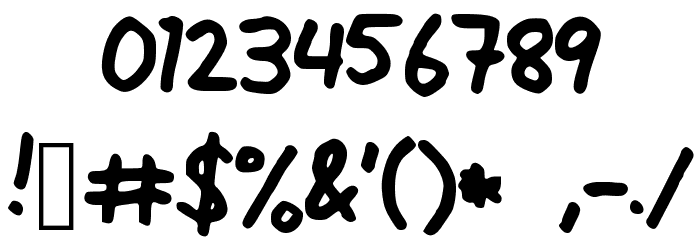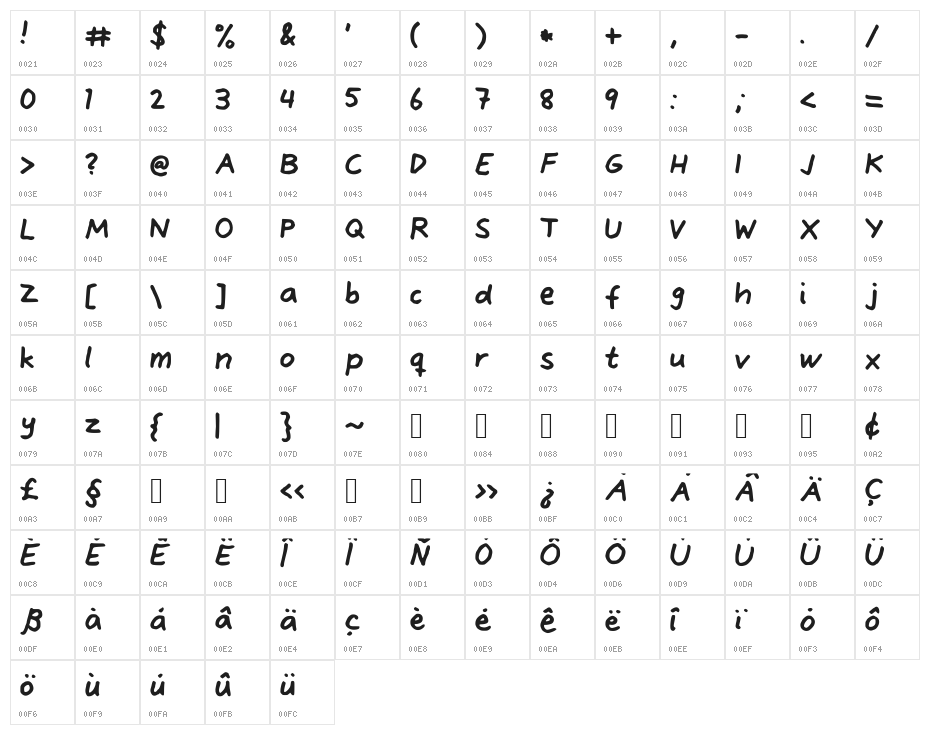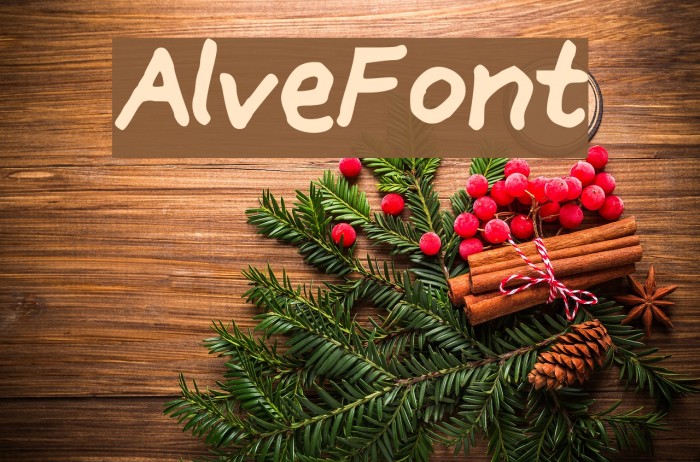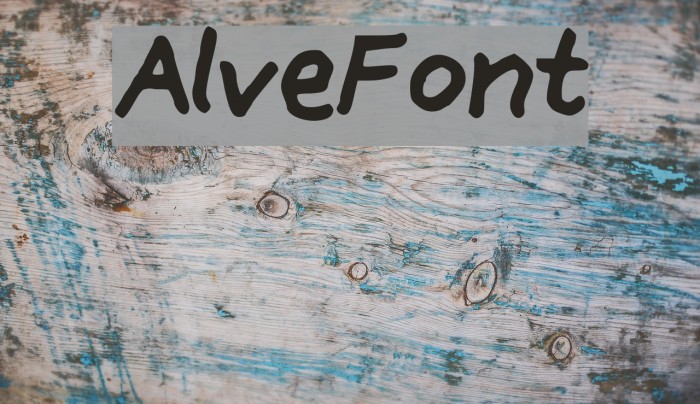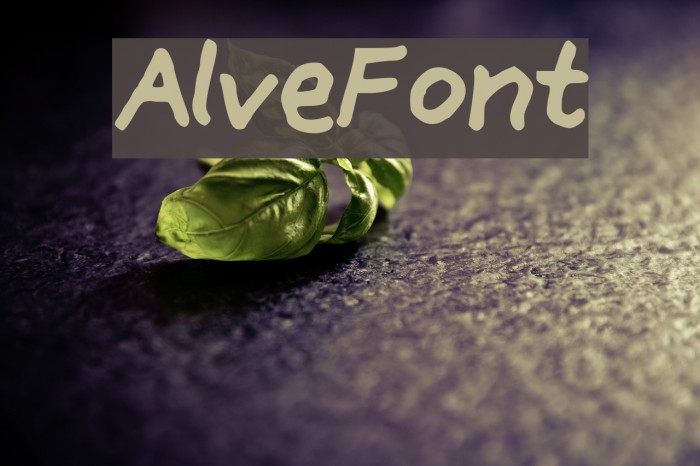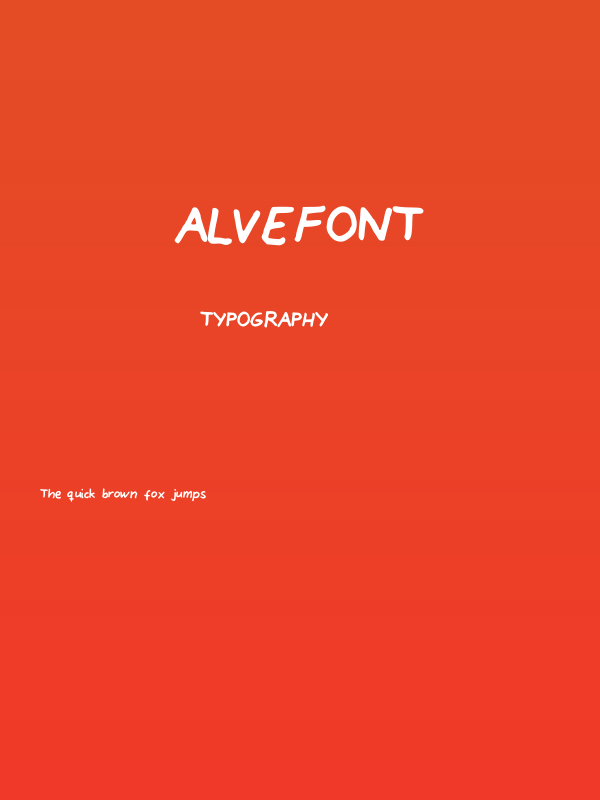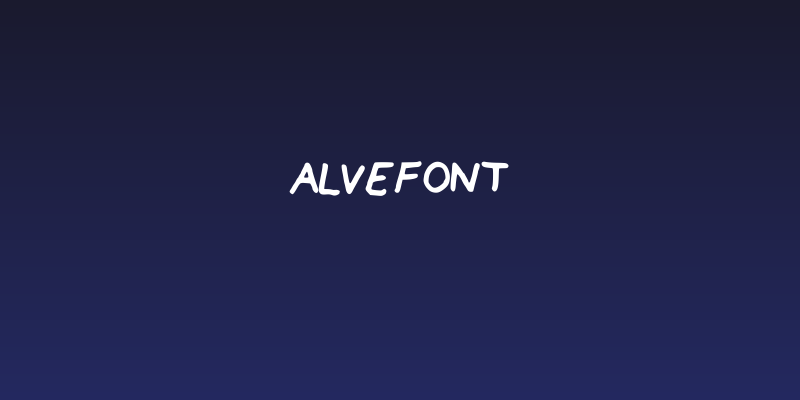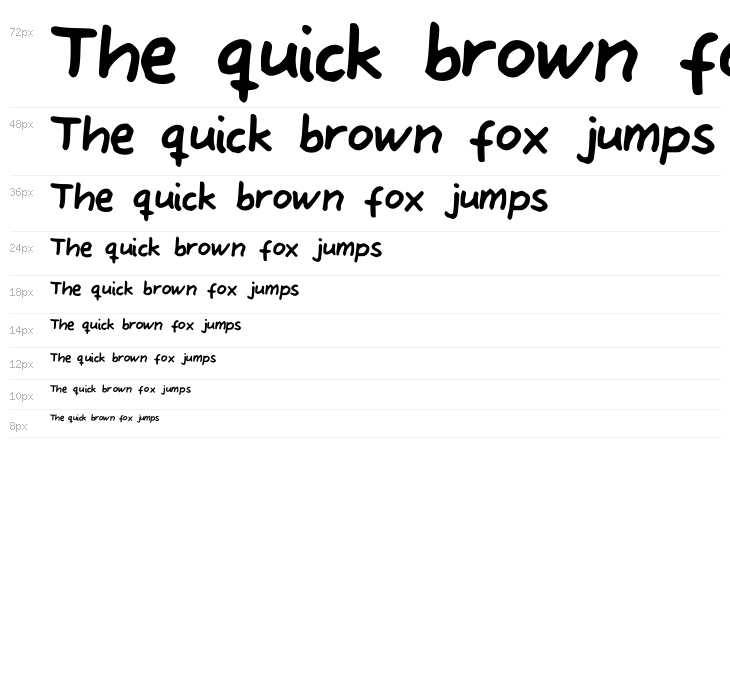
AlveFont Font
AlveFont Description
This font features a playful and casual handwritten style, characterized by its rounded and slightly irregular letterforms. The strokes are bold and consistent, giving it a friendly and approachable appearance. The uppercase and lowercase letters maintain a uniformity in style, with a slight slant that adds to its informal charm. The numbers and special characters are designed to match the overall aesthetic, ensuring a cohesive look across all text. This font is versatile, suitable for projects that require a personal touch or a relaxed vibe.
| Use Case | Headlines, Informal text, Branding |
| Proposed Projects | Ideal for greeting cards, children's books, casual branding, and social media graphics. |